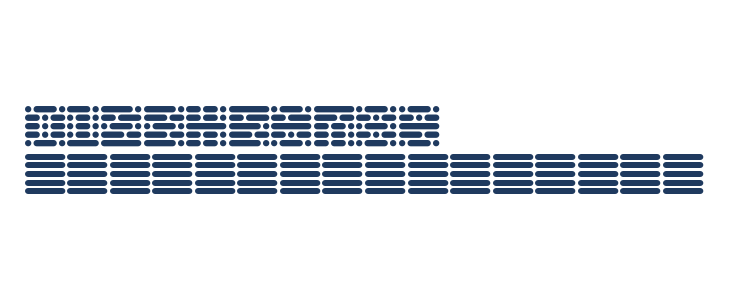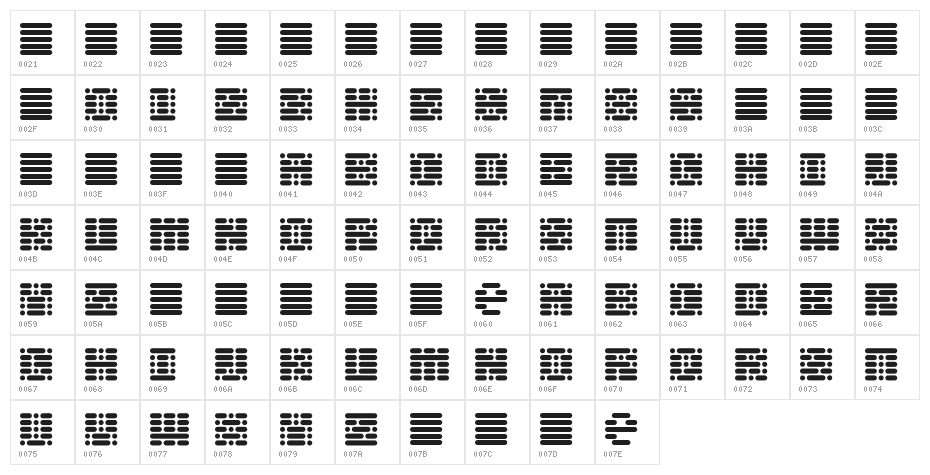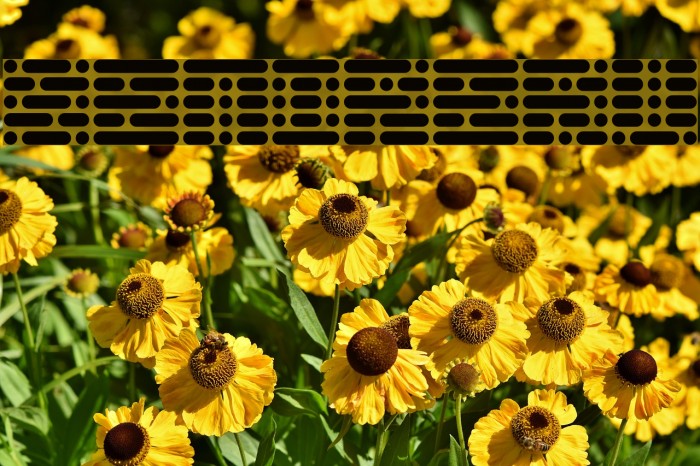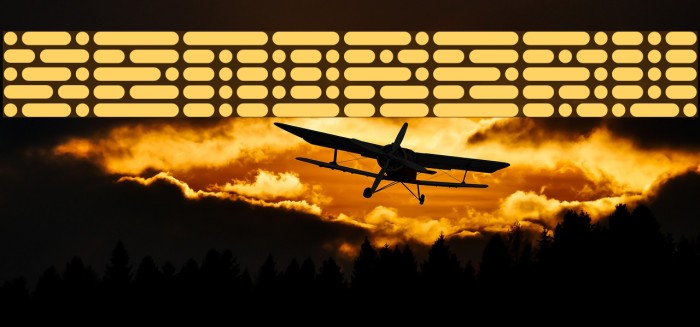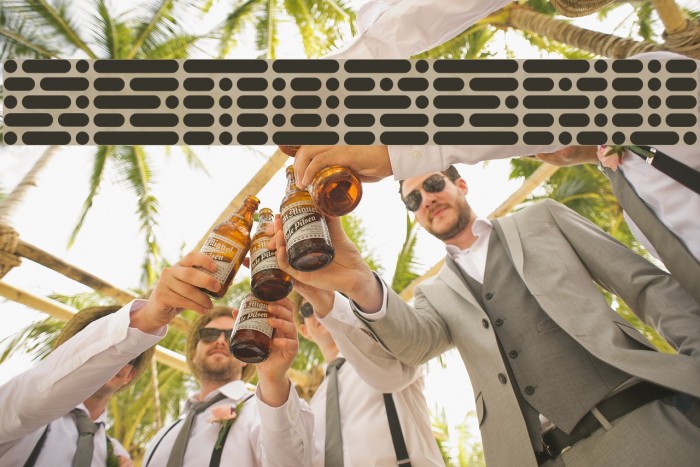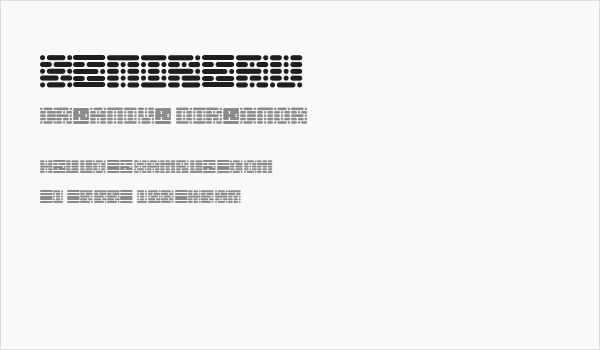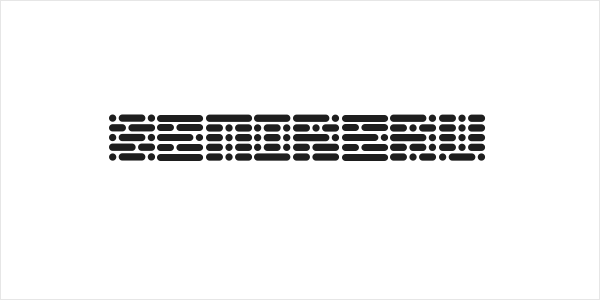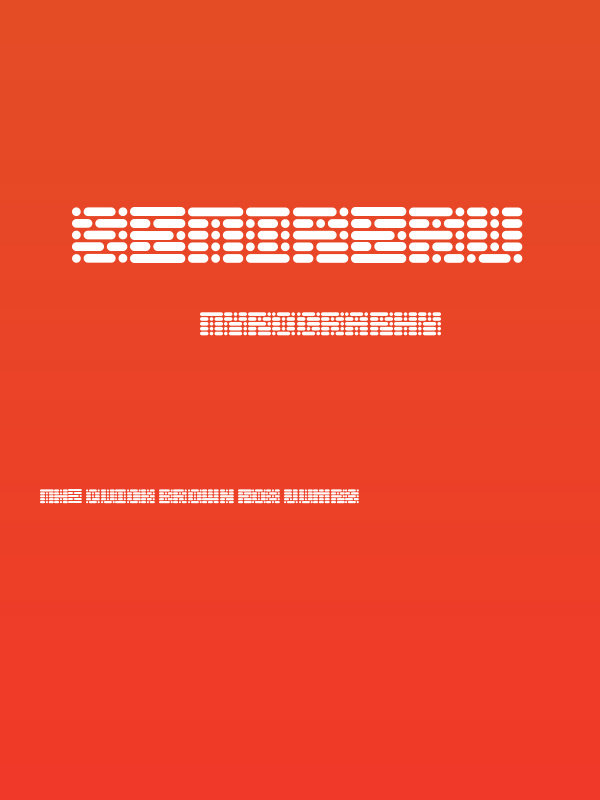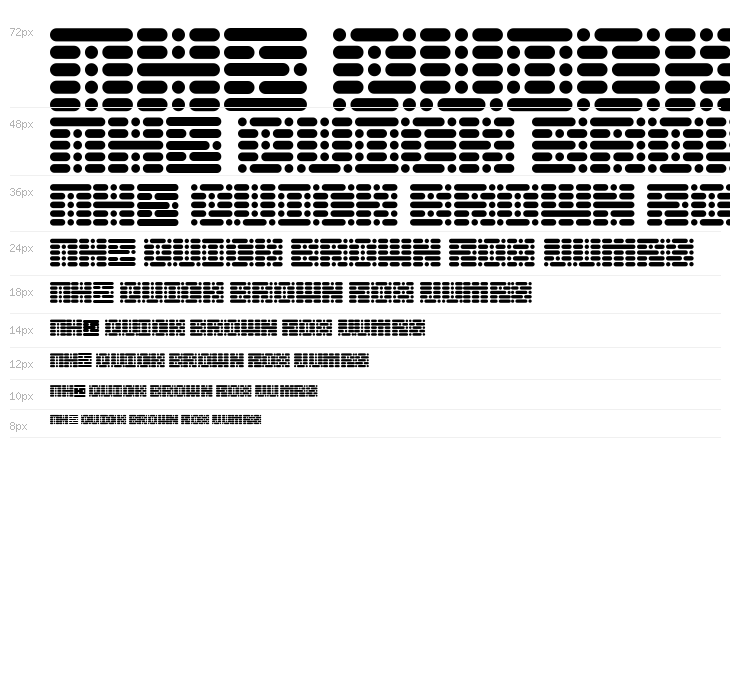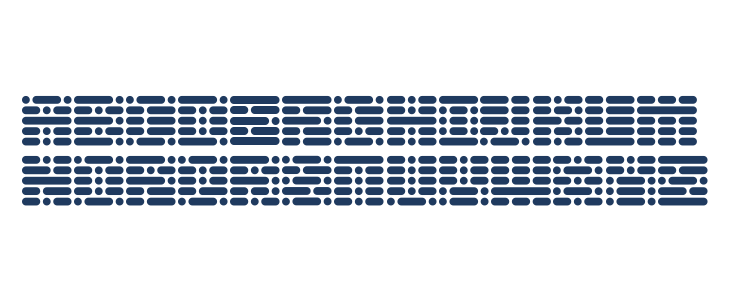
SETIPERU Font
SETIPERU Description
This font features a unique and modern design with characters composed of horizontal and vertical lines, creating a digital and futuristic appearance. The letters and numbers are constructed with a series of parallel lines, giving them a pixelated and geometric look. This style is reminiscent of digital displays or barcodes, making it ideal for projects that require a tech-savvy or avant-garde aesthetic. The uniformity in line thickness and spacing provides a cohesive and structured appearance, while the overall design maintains a sense of innovation and creativity.
| Proposed Projects | Ideal for tech branding, digital art, futuristic posters, and innovative product packaging. |